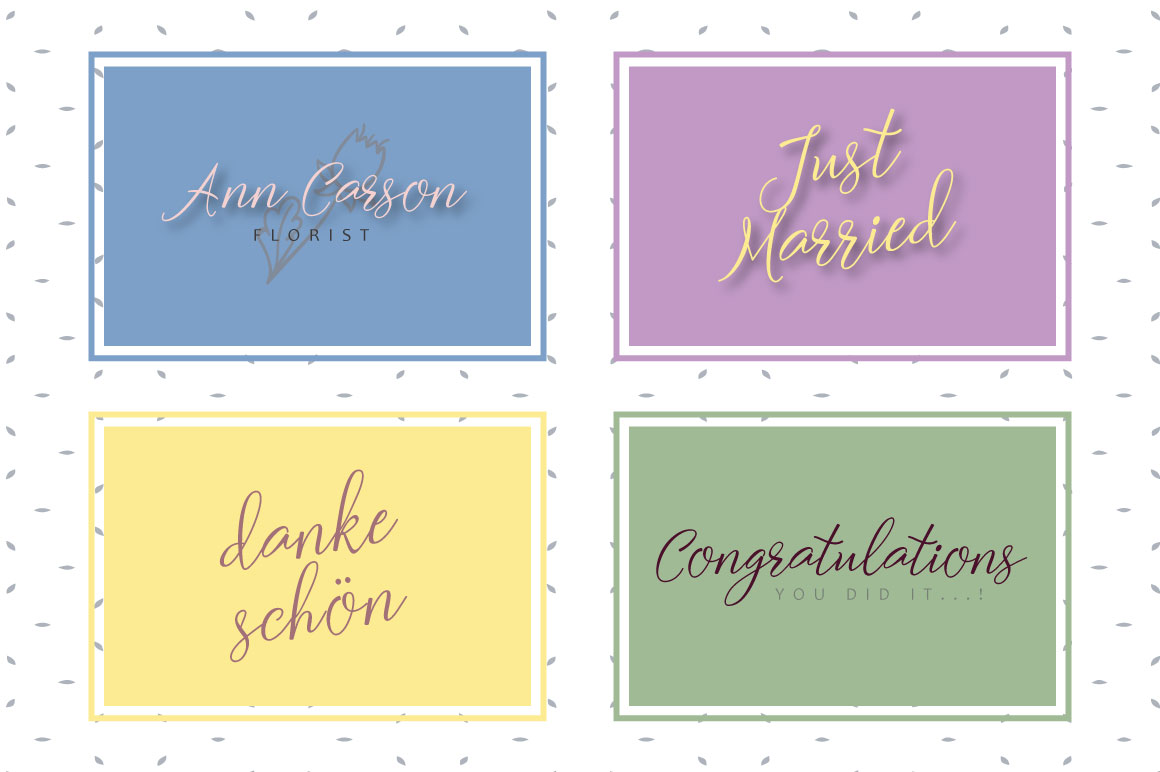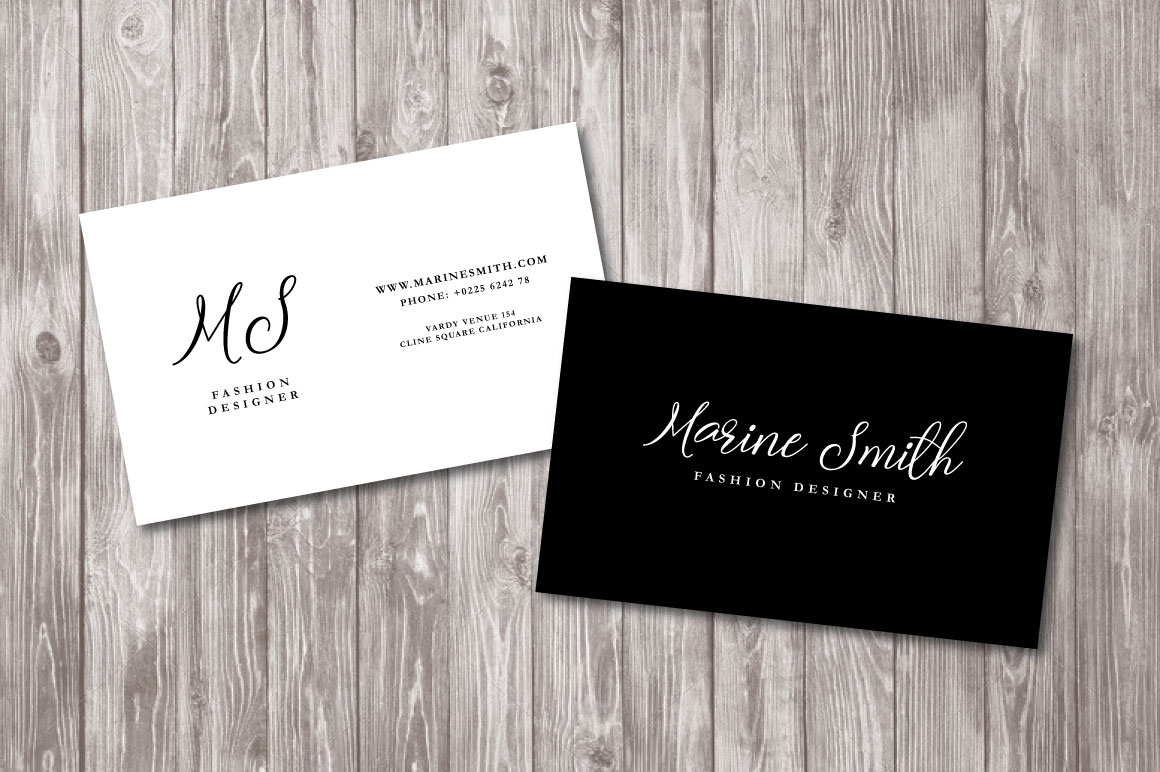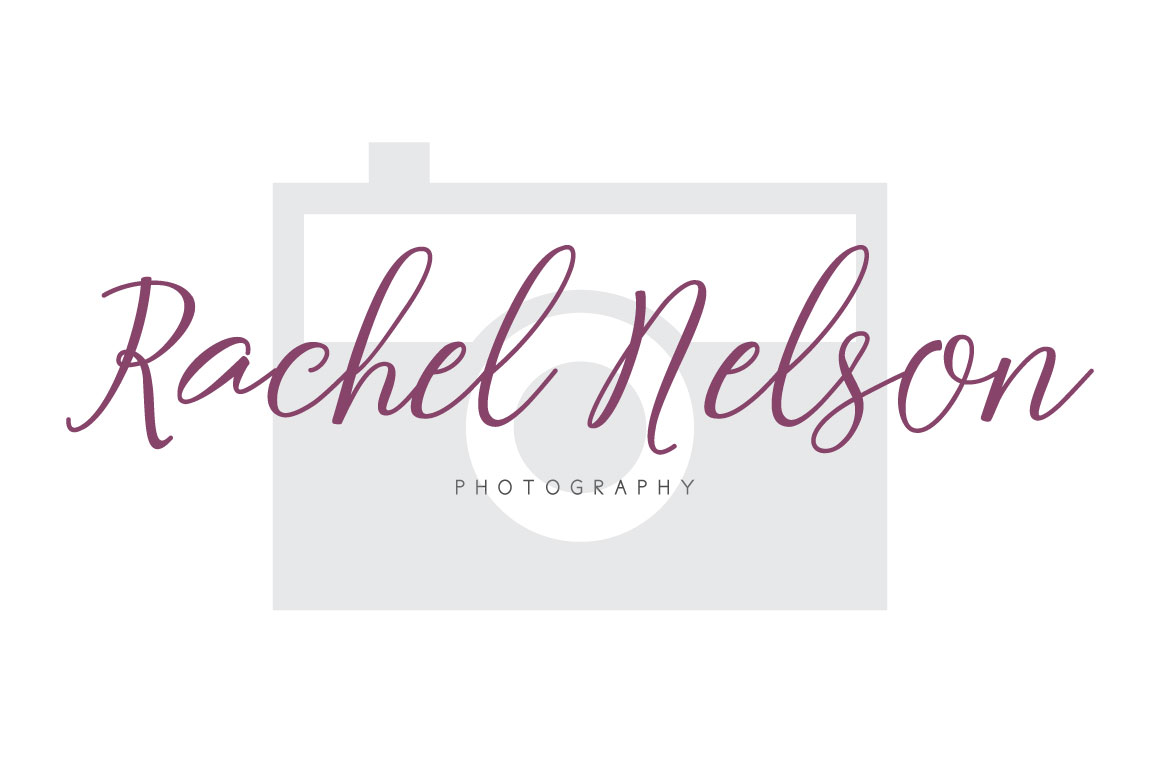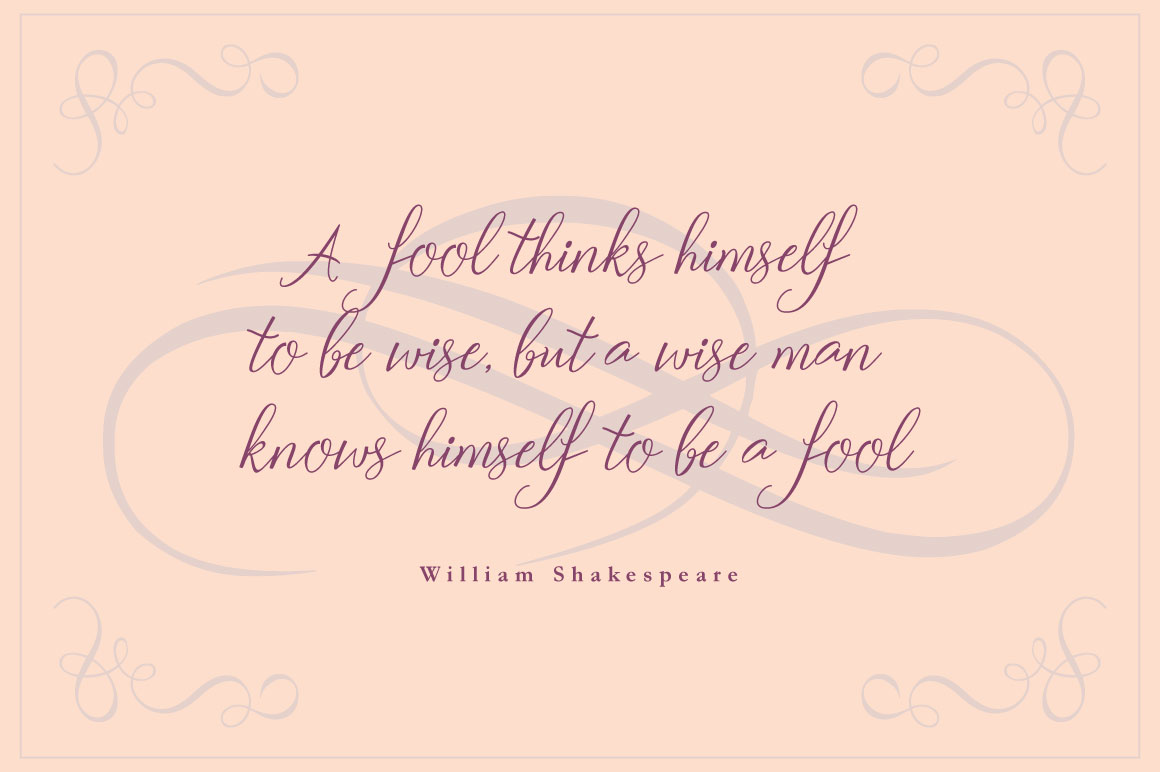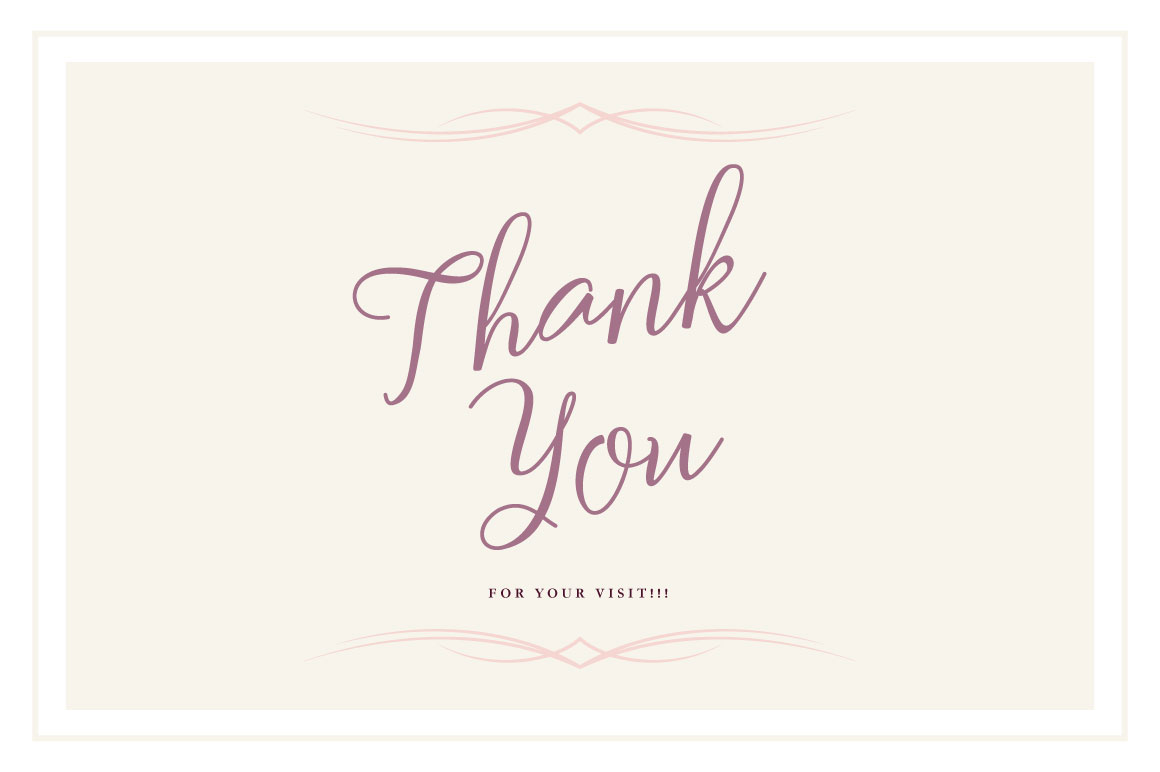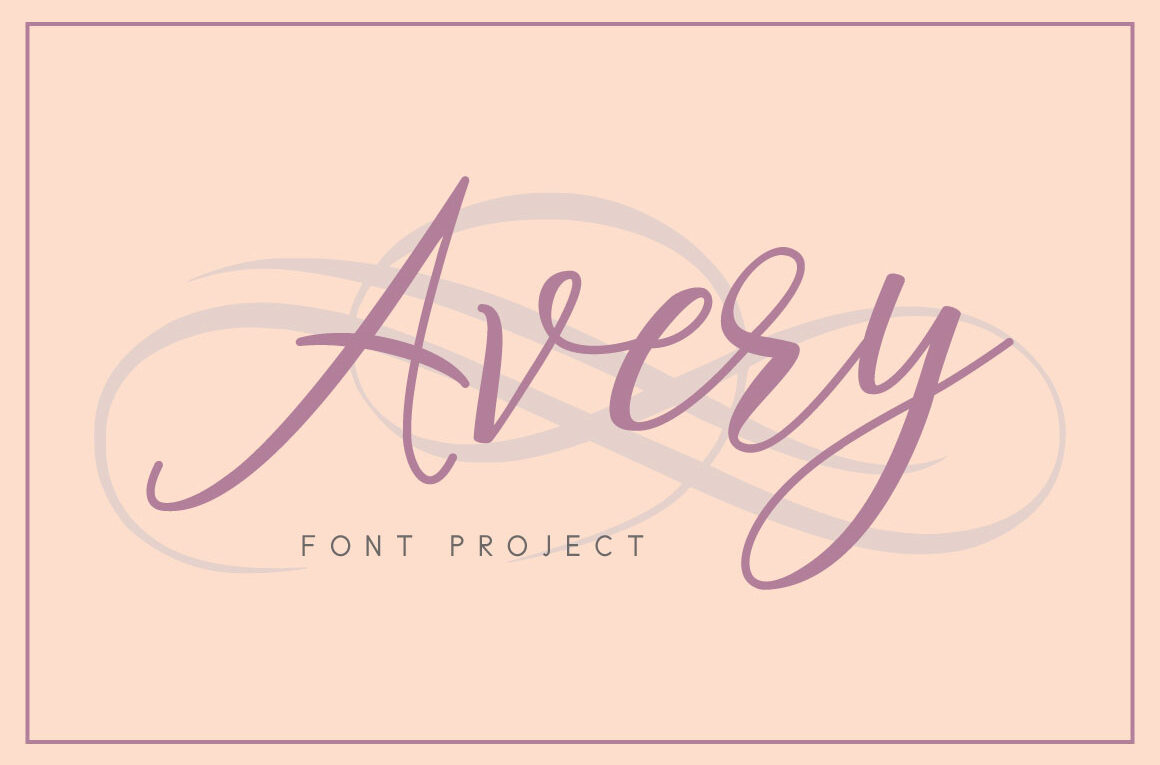
Avery Font: Elevate Your Designs with a Stunning Personal Touch
In the world of design, fonts play a crucial role in conveying the tone and aesthetic of a project. For crafters, designers, and artists, finding the perfect font can be a daunting task. However, if you’re looking for a contemporary script that can instantly add a personal touch to your designs, look no further than the Avery Font. In this article, we’ll explore the features, benefits, and uses of the Avery Font, and why it’s a must-have for any designer or crafter.
What is Avery Font?
Avery Font is a carefully hand-crafted font designed to add a stunning personal touch to your designs. This beautiful script font is perfect for anyone looking to create unique and eye-catching text that stands out from the crowd. With its elegant and flowing lines, the Avery Font is sure to turn your text into a little piece of art within seconds.
Key Features of Avery Font
- Hand-crafted with love: The Avery Font is carefully crafted with attention to detail, ensuring that every letter and curve is perfect.
- Contemporary script: The font features a modern script style that’s perfect for designs that require a touch of elegance and sophistication.
- Easy to read: Despite its artistic nature, the Avery Font is easy to read, making it perfect for use in a variety of design projects.
- Versatile: The font can be used in a range of design projects, from wedding invitations and greeting cards to branding and advertising materials.
Benefits of Using Avery Font
So, why should you choose the Avery Font for your design projects? Here are just a few benefits of using this stunning font:
- Adds a personal touch: The Avery Font adds a personal touch to your designs, making them stand out from the crowd.
- Creates a lasting impression: The font’s elegant and sophisticated style ensures that your designs will leave a lasting impression on your audience.
- High-quality: The font is designed to high-quality standards, ensuring that it will look great in any design project.
Uses of Avery Font
The Avery Font is versatile and can be used in a range of design projects, including:
- Wedding invitations and stationery: The font’s elegant style makes it perfect for wedding invitations, save-the-date cards, and other wedding stationery.
- Greeting cards and gift tags: The Avery Font is perfect for creating beautiful greeting cards and gift tags that add a personal touch.
- Branding and advertising: The font’s modern style makes it perfect for use in branding and advertising materials, such as logos, brochures, and flyers.
- Digital designs: The Avery Font can be used in digital designs, such as social media graphics, blog posts, and website headers.
Tips for Using Avery Font
Here are a few tips for using the Avery Font in your design projects:
- Use it sparingly: The Avery Font is a statement font, so use it sparingly to add emphasis to your designs.
- Pair it with other fonts: The font pairs well with other fonts, so experiment with different combinations to find the perfect look.
- Experiment with colors: The Avery Font looks great in a range of colors, so experiment with different colors to find the perfect match for your design.
In conclusion, the Avery Font is a stunning script font that’s perfect for designers and crafters looking to add a personal touch to their designs. With its elegant and flowing lines, the font is sure to turn your text into a little piece of art within seconds. Whether you’re creating wedding invitations, greeting cards, or branding materials, the Avery Font is a must-have font that will elevate your designs to the next level.